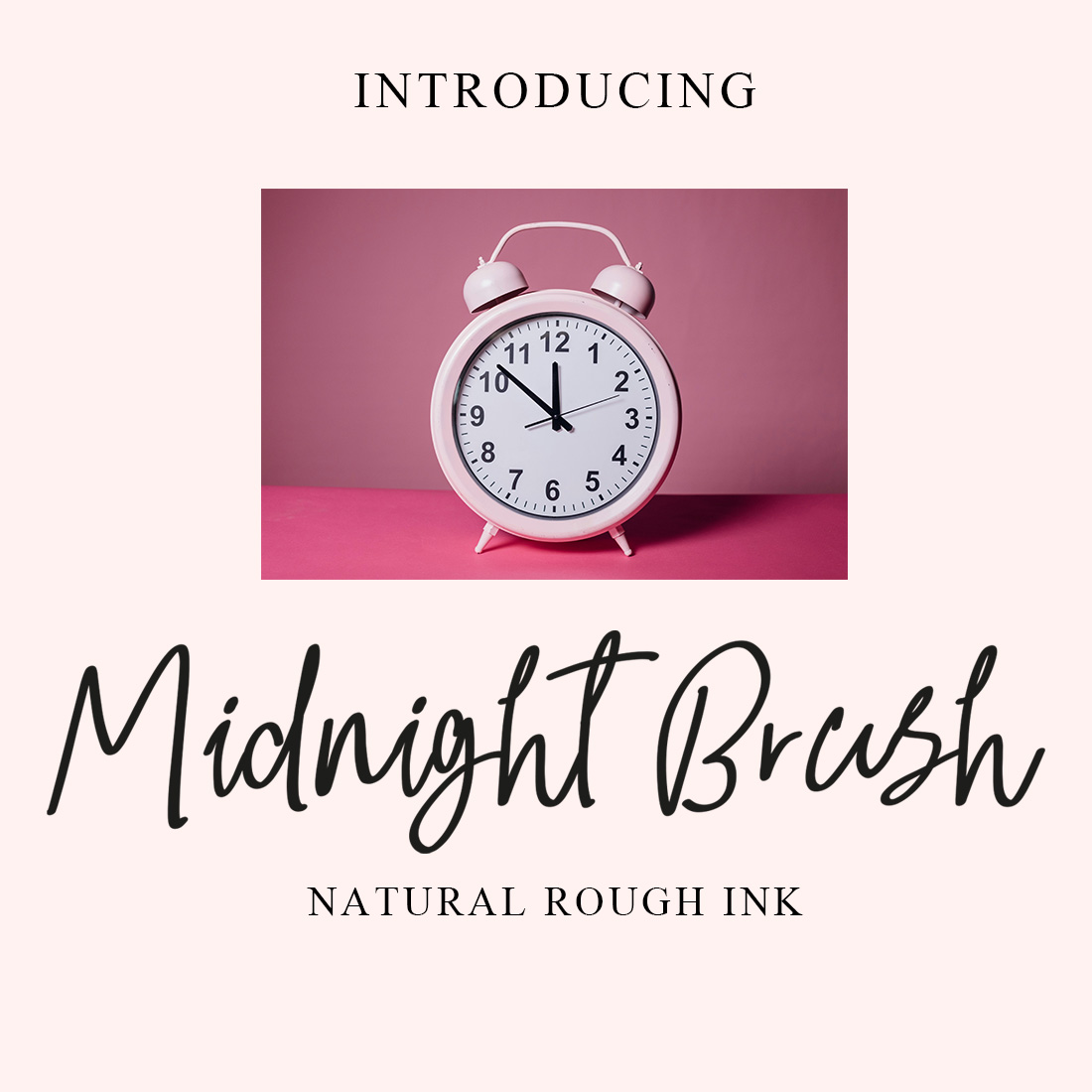
Quiet Acre Textured Brush Font
Midnight Brush is designed to emulate natural handwriting, A beautifully designed handwriting that exudes natural elegance and personality. With natural strokes, delicate strokes, and subtle imperfections, this font captures the essence of authentic handwriting.
Ideal for wedding invitations, logos, branding projects, display product, invitation design, social media posts, and more, this font effortlessly blends charm and versatility. With its organic feel and stylish extras, Midnight is your go-to choice for creating designs that are as unique as they are timeless.